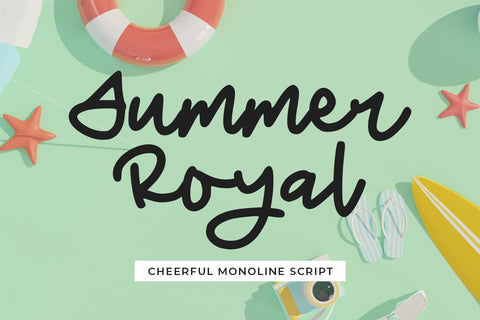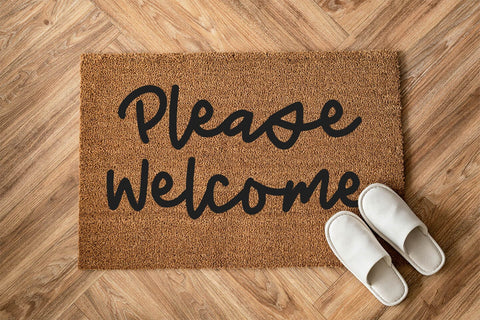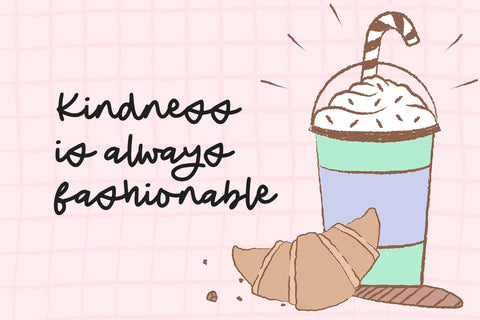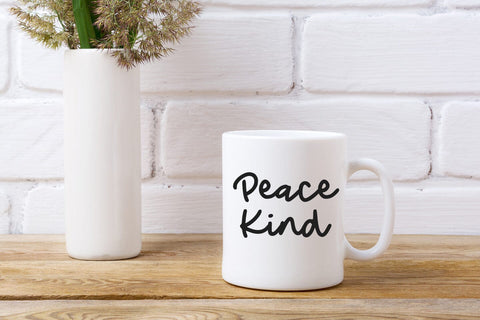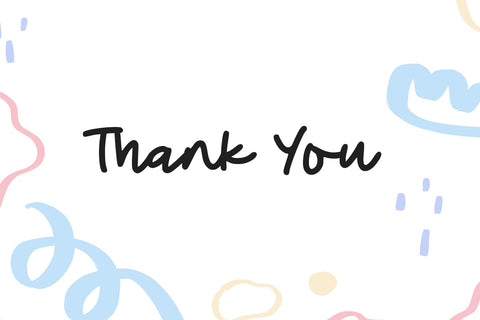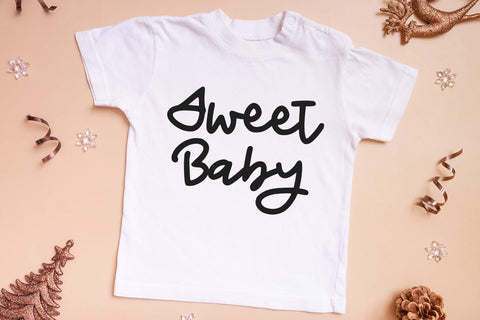
Summer Royal
introducing
SUMMER ROYAL
- cheerful monoline script -
SUMMER ROYAL is a playful display script font.
It is great for branding, quotes, logos, t-shirt designs, tote bag designs, cards, banners, social media, and more.